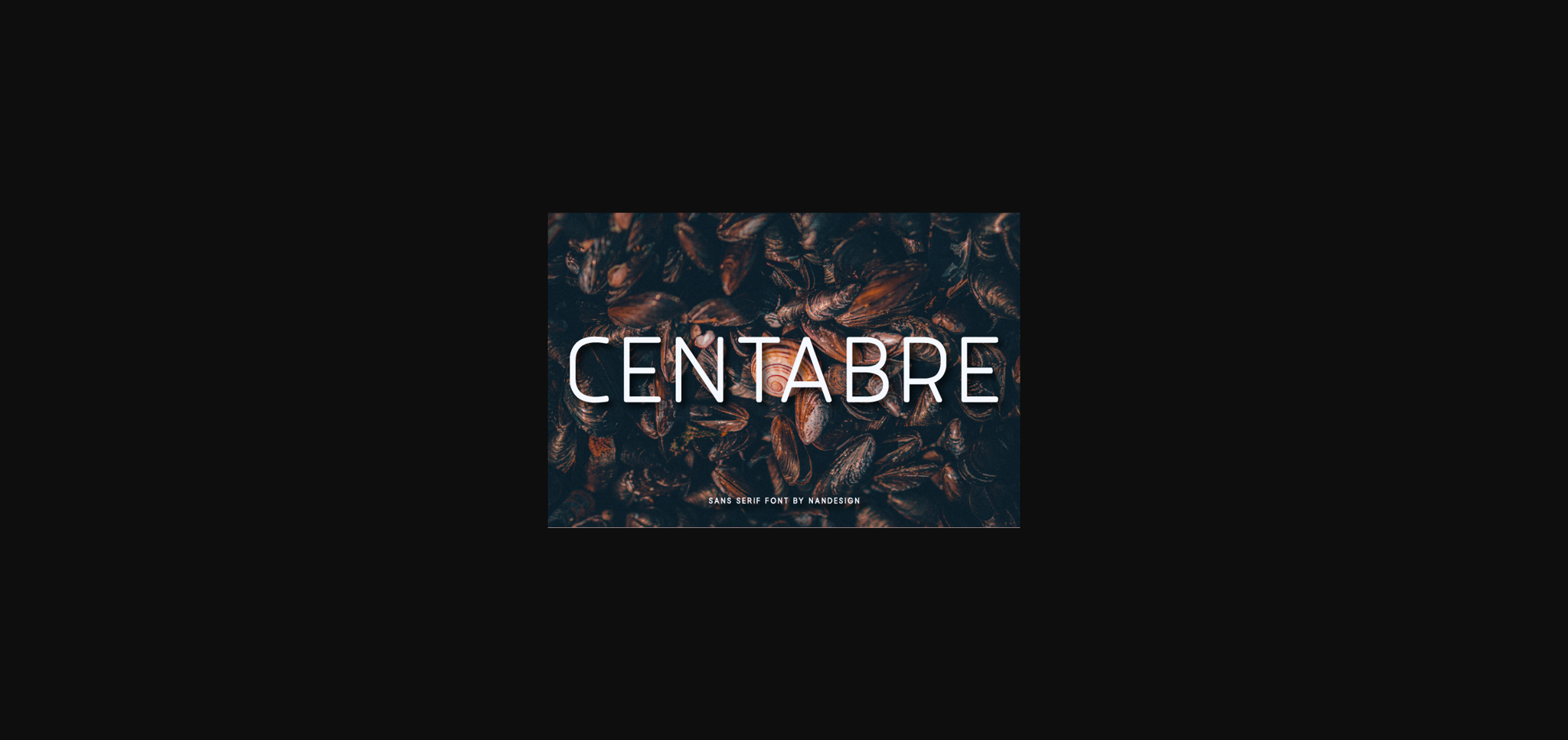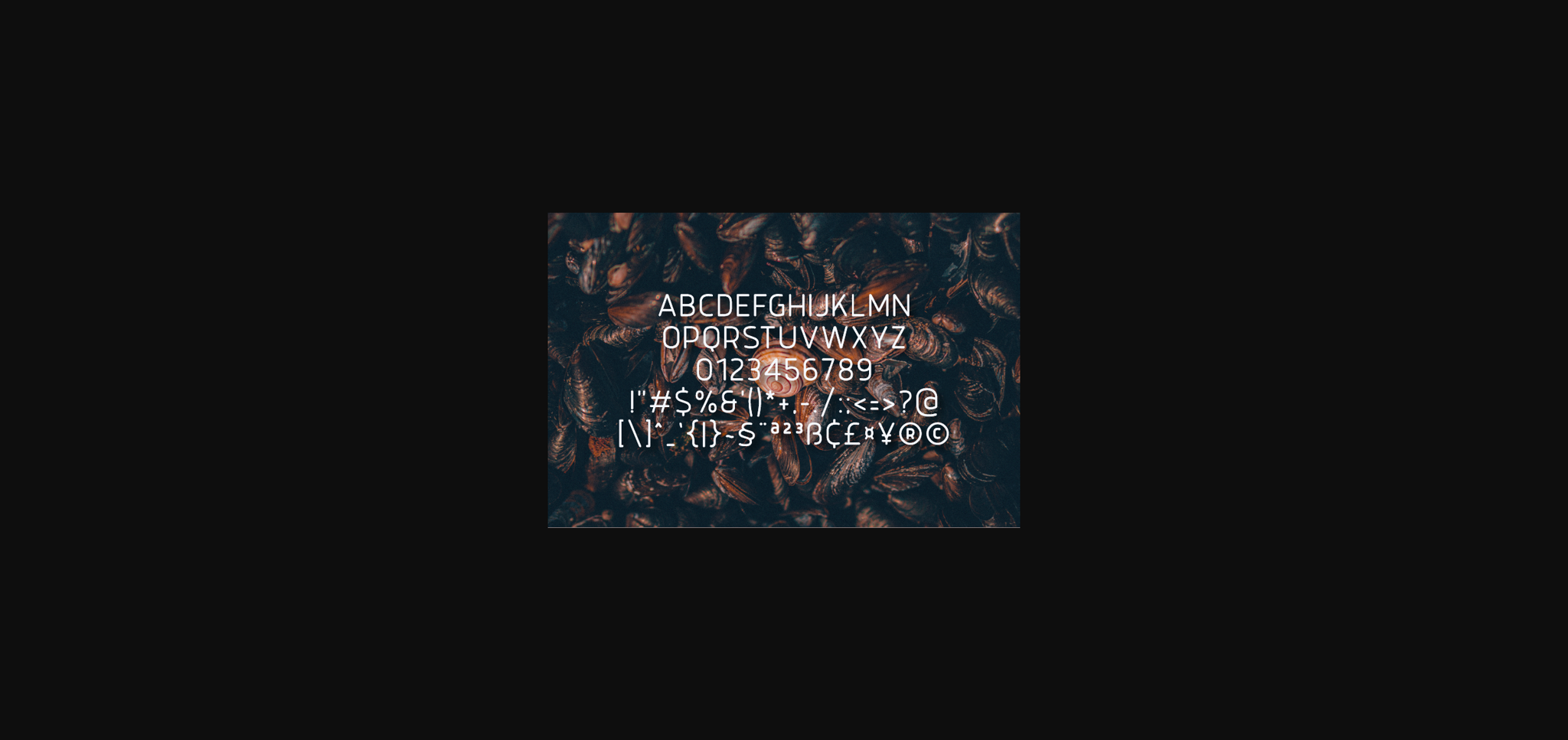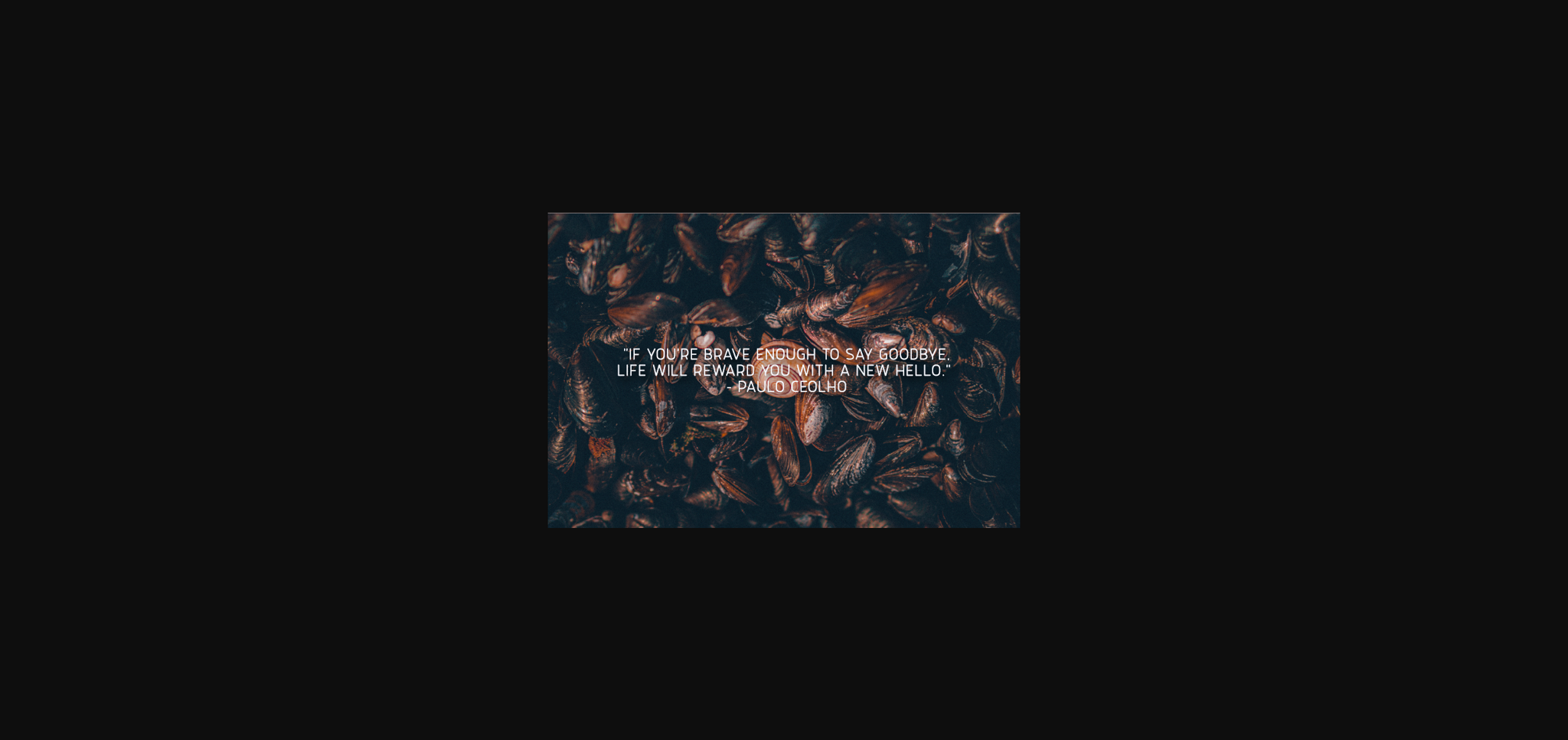
About Centabre Font
Centabre is a simple and versatile sans serif, designed to complement every single project you’re currently working on.
Use it to create beautiful headings, gorgeous invitations, stunning logos, and so much more!